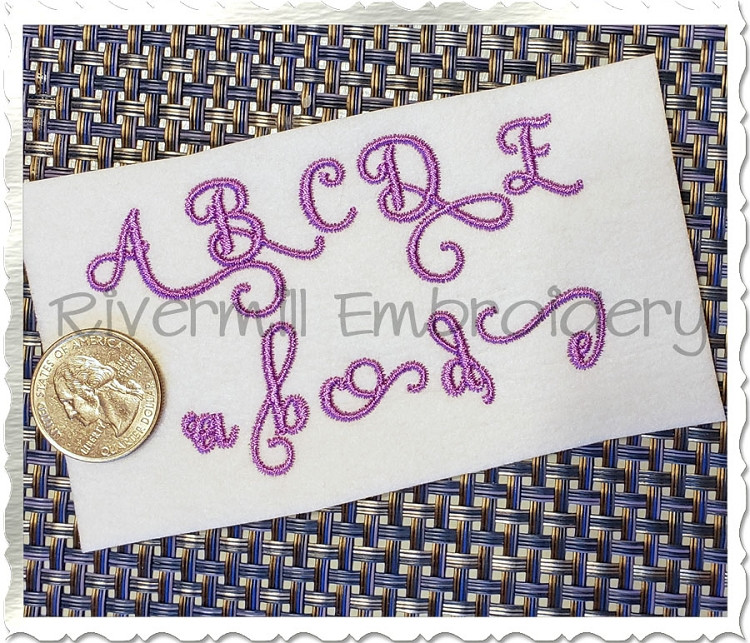
Small Samantha Script Alternate Letters (Set 3) Machine Embroidery Font Alphabet
These letters are made to mix and match with the basic Samantha Script Set that can be found here - Small Samantha Script Basic Machine Embroidery Font Alphabet
They can be used alone also, but because of all the swirls...some combinations of letters may not look exactly right together if you don't use some of the more plain letters that are included in the basic set.
These letters are a little larger because of all the extra swirls and flourishes.